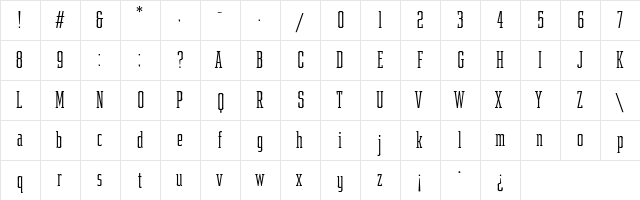
Samton Extra Condensed Light
| Foundry | Ilham Herry Type Supply |
| Designer | Ilham Herry |
Design Context for Samton Typeface
Samton offers clean, dependable letterforms without strong stylistic allegiance, making it a practical choice for designers who need flexibility. The delicate stroke weight brings airiness and refinement to layouts. The condensed width makes it efficient for tight spaces without sacrificing legibility.